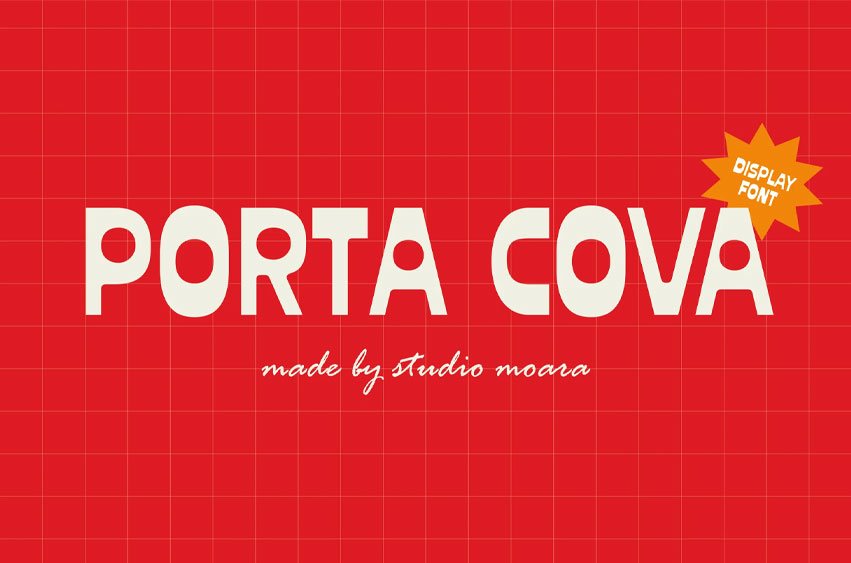
Porta Cova Font
Porta Cova Font is a bold and modern display font with a retro touch. Featuring clean lines and geometric shapes, it’s perfect for eye-catching headlines, branding, posters, and packaging.
With a playful yet sophisticated style, Porta Cova brings a fresh, dynamic feel to any design project.